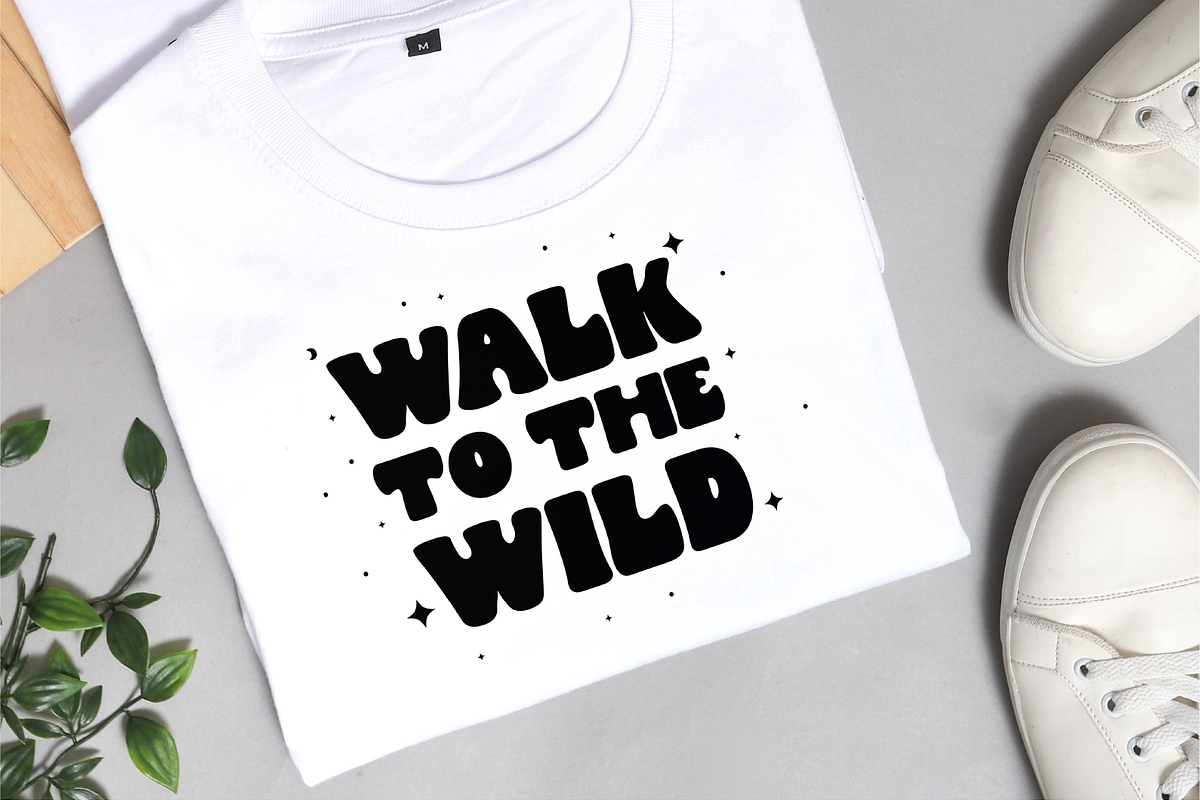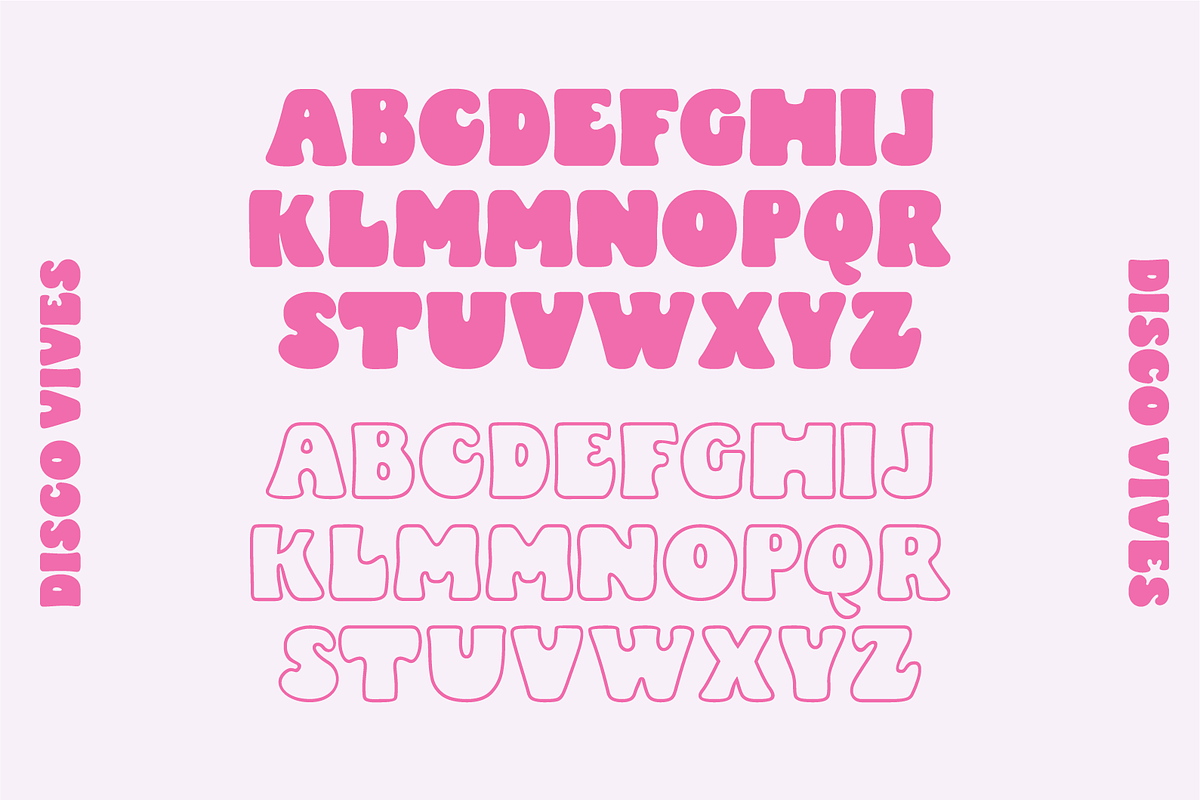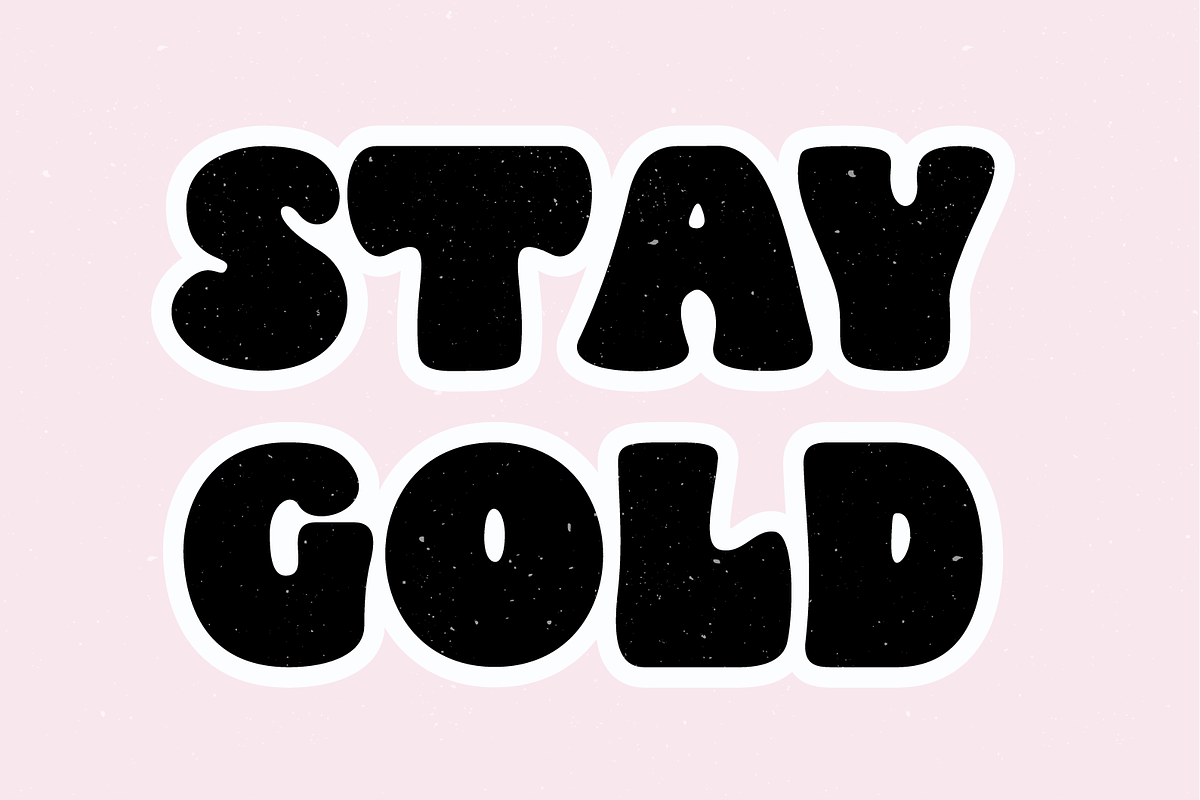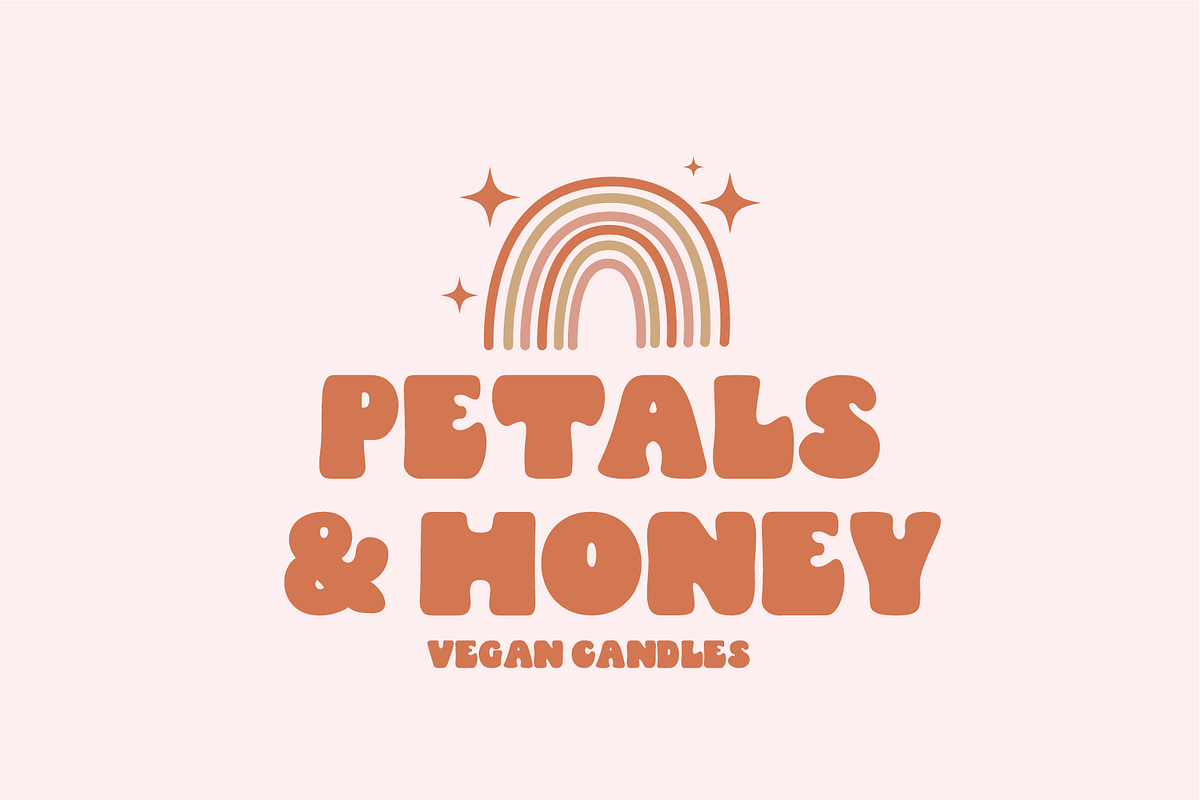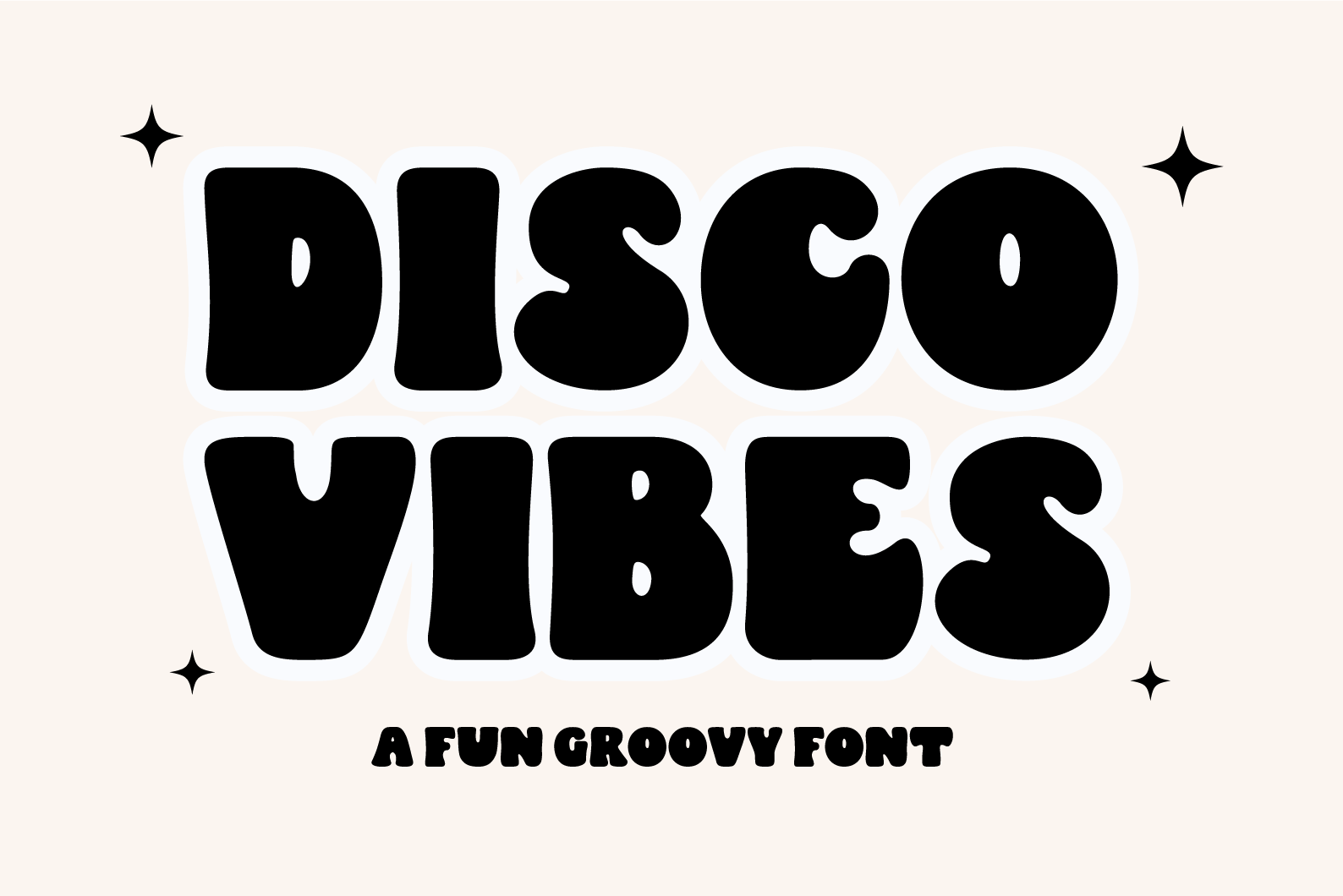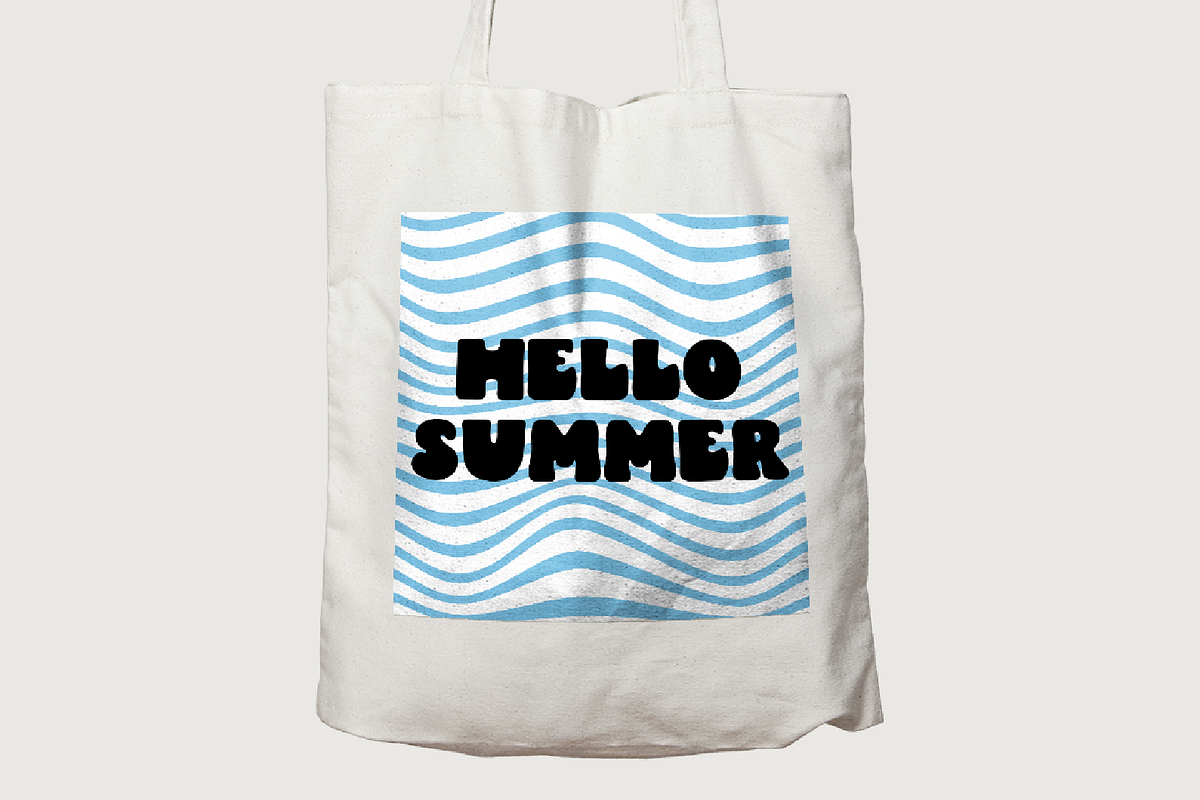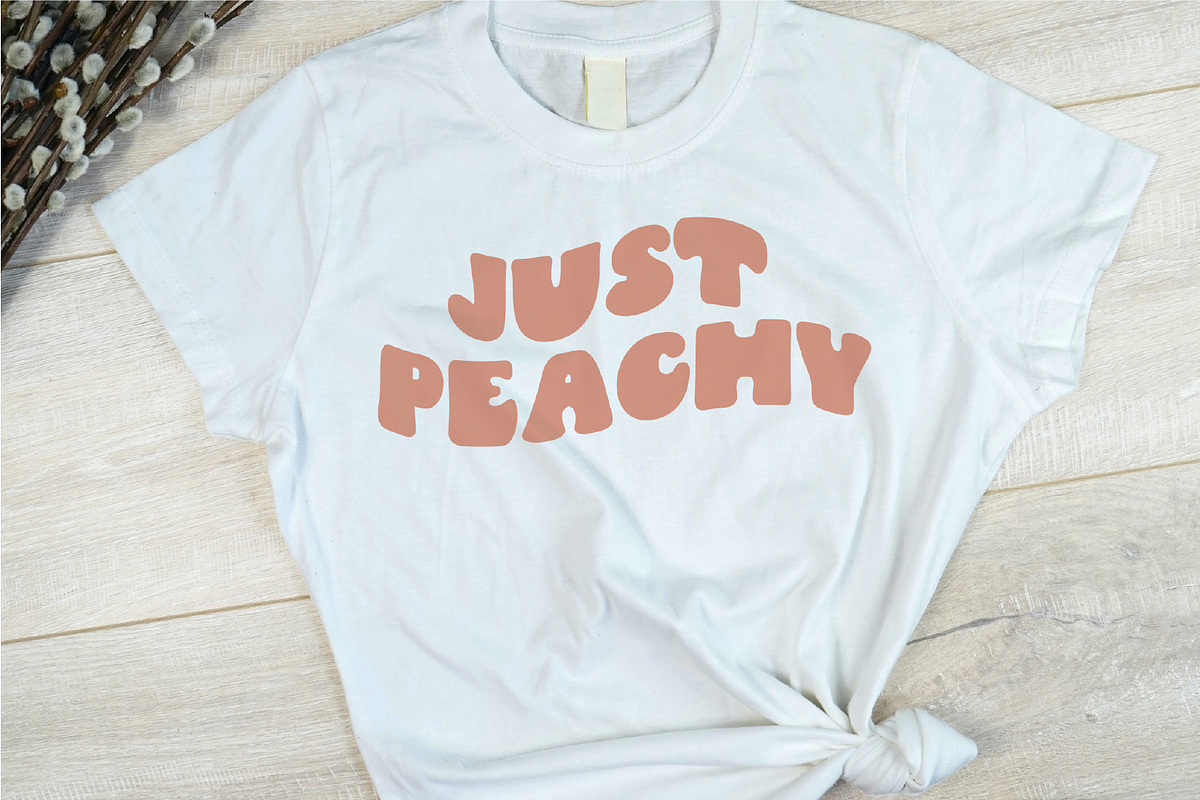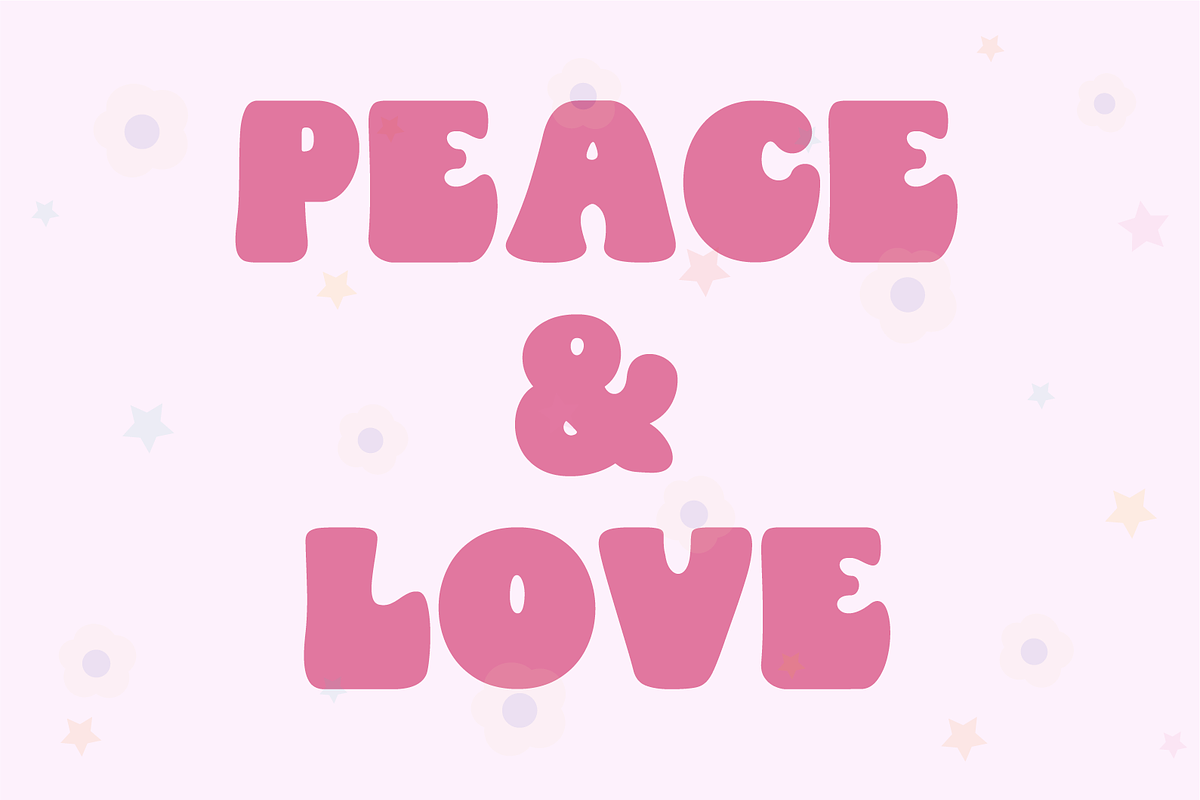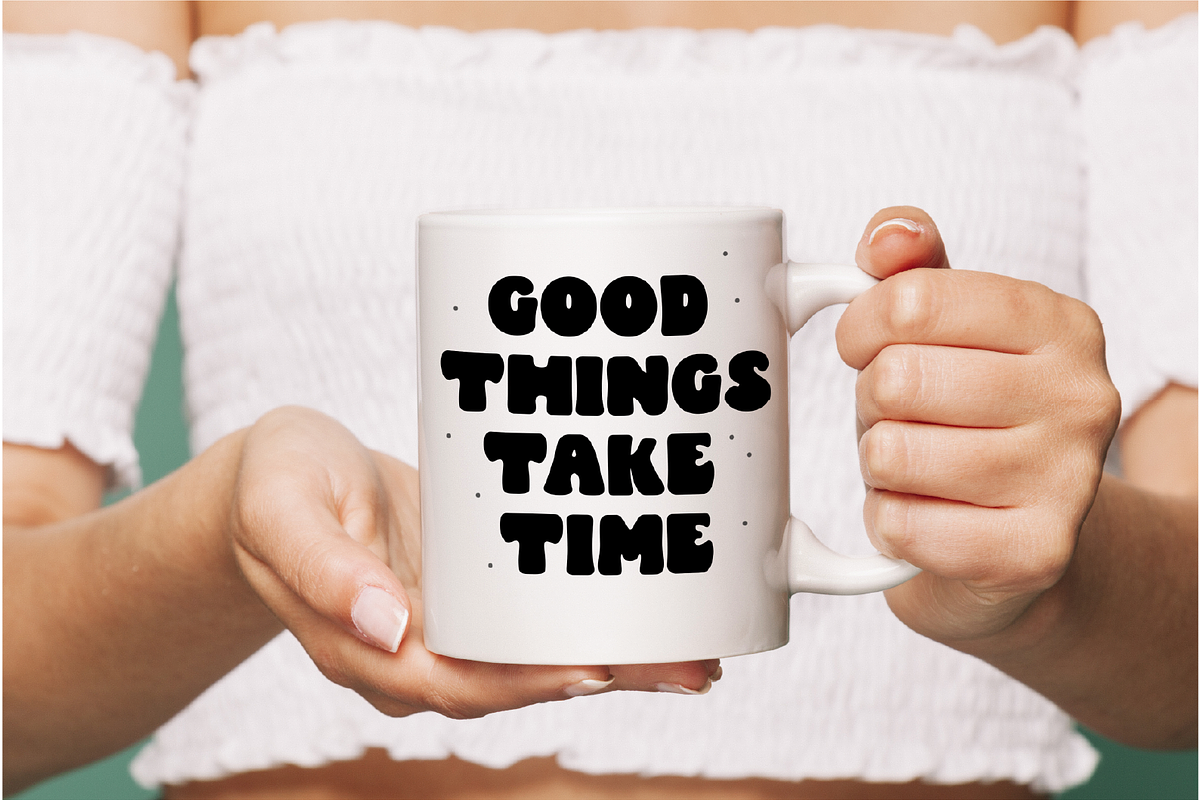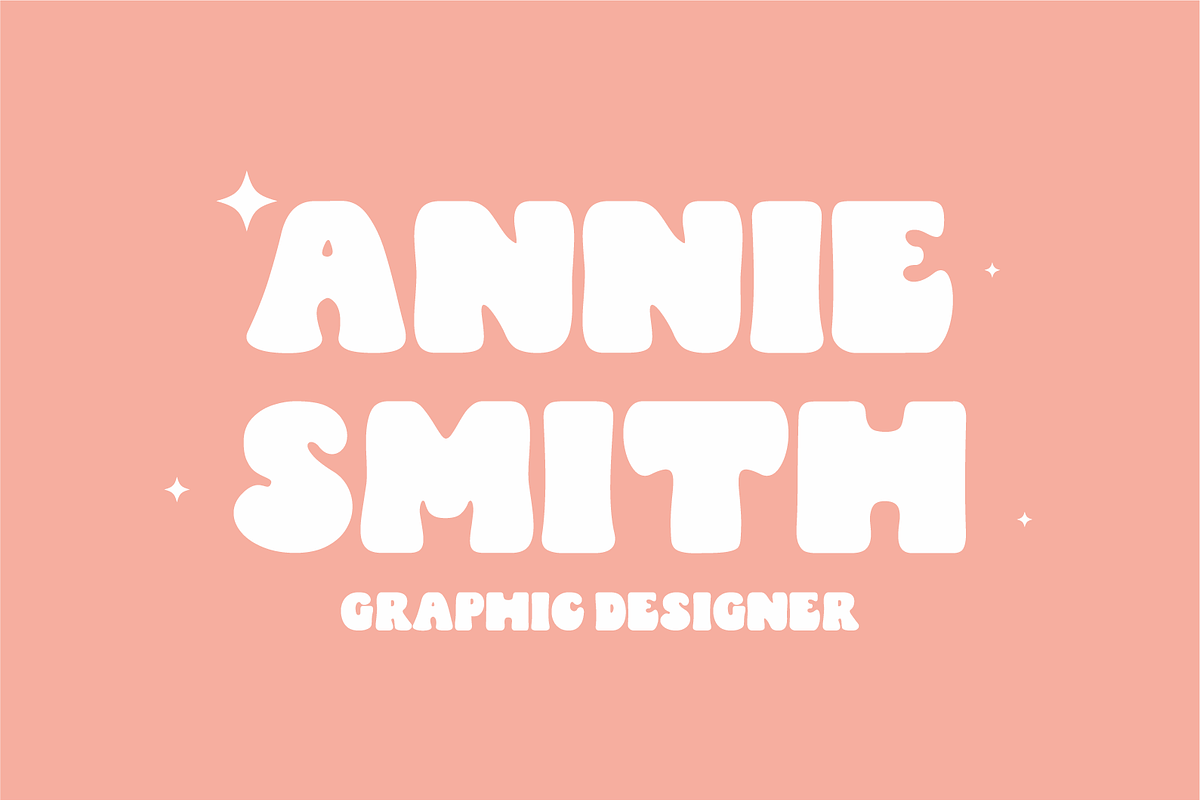
Disco Vibes A Fun Groovy Font
Introducing our latest creation: a trendy, retro all caps font disco vibes with an extra special feature - an outline font! Get ready to stand out from the crowd with this unique and versatile font duo.
Our trendy, retro all caps font brings a touch of nostalgia to your designs, evoking the spirit of the past while retaining a modern edge. Its bold, geometric shapes and vintage-inspired flair make it the perfect choice for those seeking a truly eye-catching font.
But that's not all - included as a bonus is an outline font version, adding another layer of creativity and versatility to your projects. With this outline font, you can effortlessly create stunning effects and add a unique touch to your typography.
This font duo is designed with readability in mind, ensuring that your message is clear and captivating. Whether you're designing eye-catching logos, attention-grabbing headlines, or stylish packaging, this font combo has got you covered.
Embrace the retro vibes and let your creativity soar with our trendy, retro all caps font Disco Vibes and its complimentary outline font. Don't miss out on this must-have addition to your font collection. Get yours today and start creating stunning designs that capture the essence of the past with a modern twist!